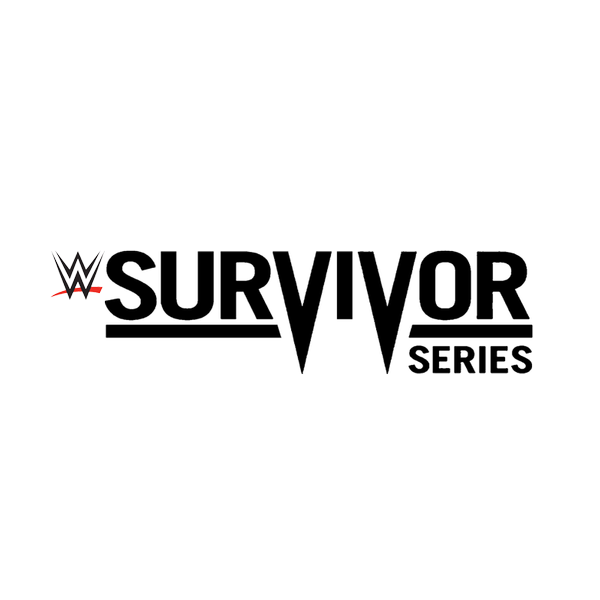
Survivor Series Font
Fonts in UseSurvivor Series is an annual professional wrestling pay-per-view event produced by WWE, featuring a series of elimination tag team matches and championship bouts, showcasing the best talent from both the Raw and SmackDown brands.
The Survivor Series logo appears to have been inspired by the Trade Gothic font by Jackson Burke. However, if you wish to recreate the logo, you can utilize the Survivor Series font designed by Jayde Garrow, which is available as a free download from the Fonts Used Section.